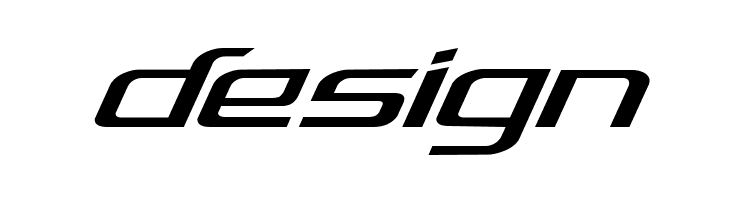
Elevatia Italic Font
- Font: Elevatia Italic
( Fonts by dartcanada.tripod.com - Darren Rigby )
A modern, sleek italic font with smooth, flowing lines.